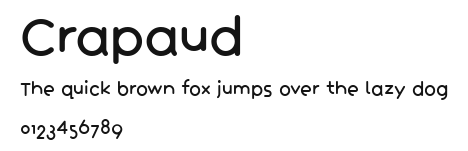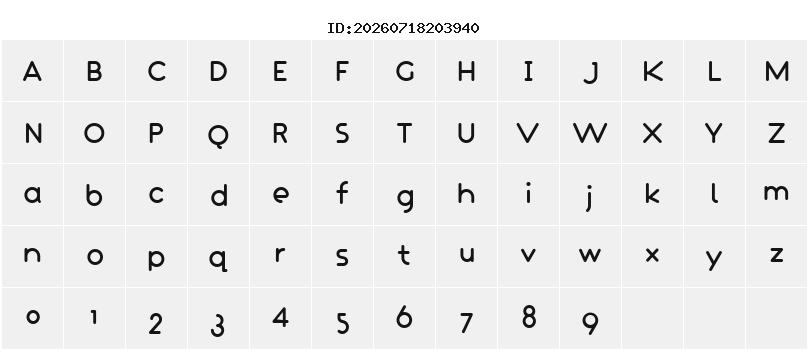
• Font Name: Crapaud
• Designer: Emile byeongSu Kim
• Manufacturer: Process PA.ST Foundry
About Crapaud.ttf
Crapaud.ttf is a modern, elegant sans-serif font designed for ultimate readability and visual harmony. Perfect for branding, headlines, web design, and print materials.